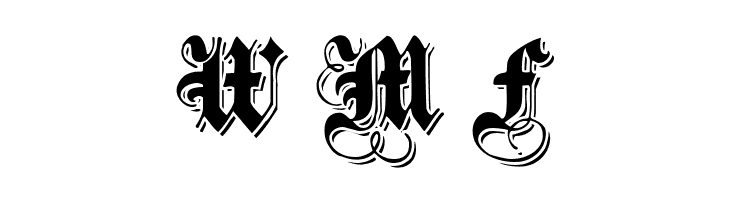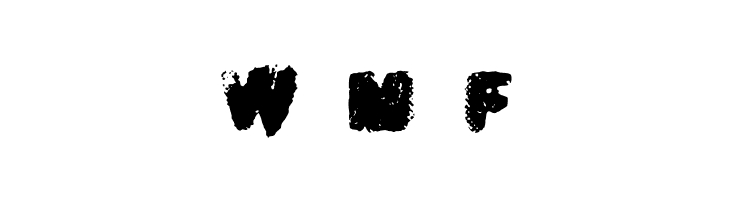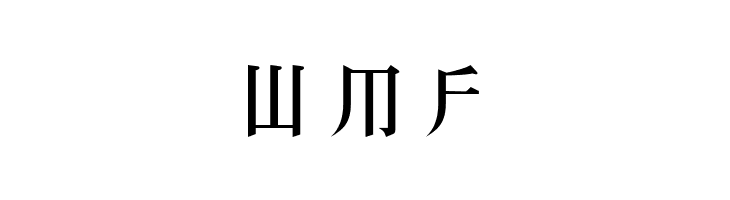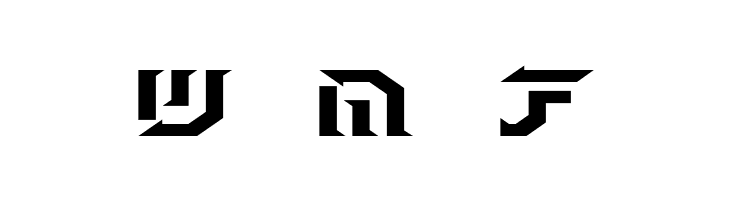
An elegant italic serif font with classic styling and moderate contrast.
A bold, ornate Blackletter font with intricate medieval styling.
A bold, decorative Blackletter font with intricate medieval styling.
A bold, italic, futuristic font with rounded edges and a sleek design.
A decorative blackletter font with ornate, gothic styling.
A bold, perforated font with an industrial, modern aesthetic.
A playful, bold font with a double-line outline and bubble-like characters.
An elegant serif font with classic, sophisticated styling.
A bold, futuristic font with sharp, angular edges and geometric styling.
A futuristic, 3D italic font with outlined characters and geometric shapes.
A bold, medieval-inspired font with sharp serifs and dramatic styling.
A bold, blackletter-inspired font with ornate and dramatic styling.
A condensed blackletter font with bold, angular lines and medieval styling.
An ornate blackletter font with intricate, historical styling.
A classic serif font with medium contrast and elegant styling.
A classic serif font with high contrast and elegant, sophisticated styling.
An elegant italic font with medium contrast and classic styling.
A distressed serif font with a vintage, grunge aesthetic.
A bold, futuristic font with geometric and dynamic styling.
A festive, decorative font with Easter-themed elements and bold styling.
An elegant, high-contrast serif font with italic styling.
A bold, slanted font with dynamic and energetic styling.